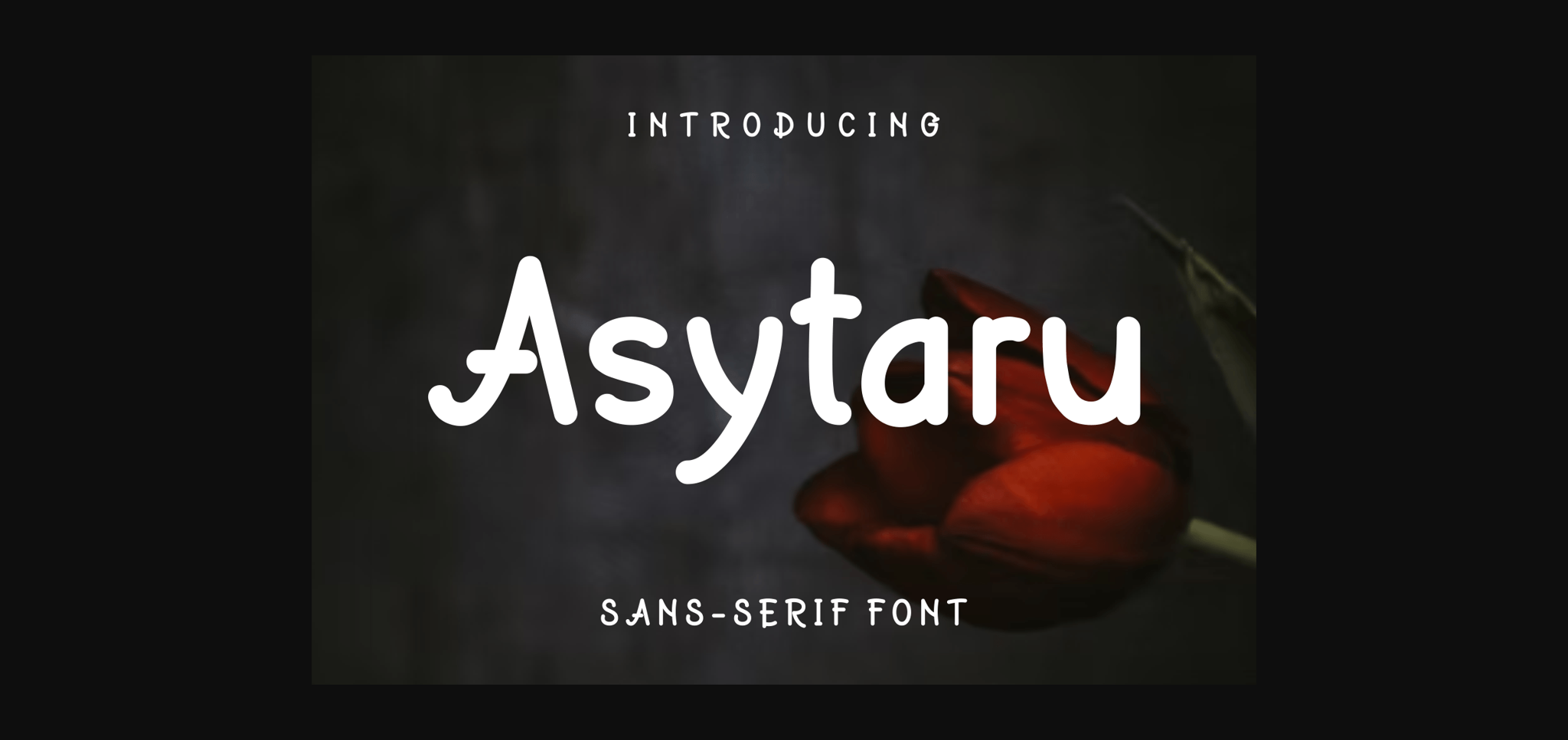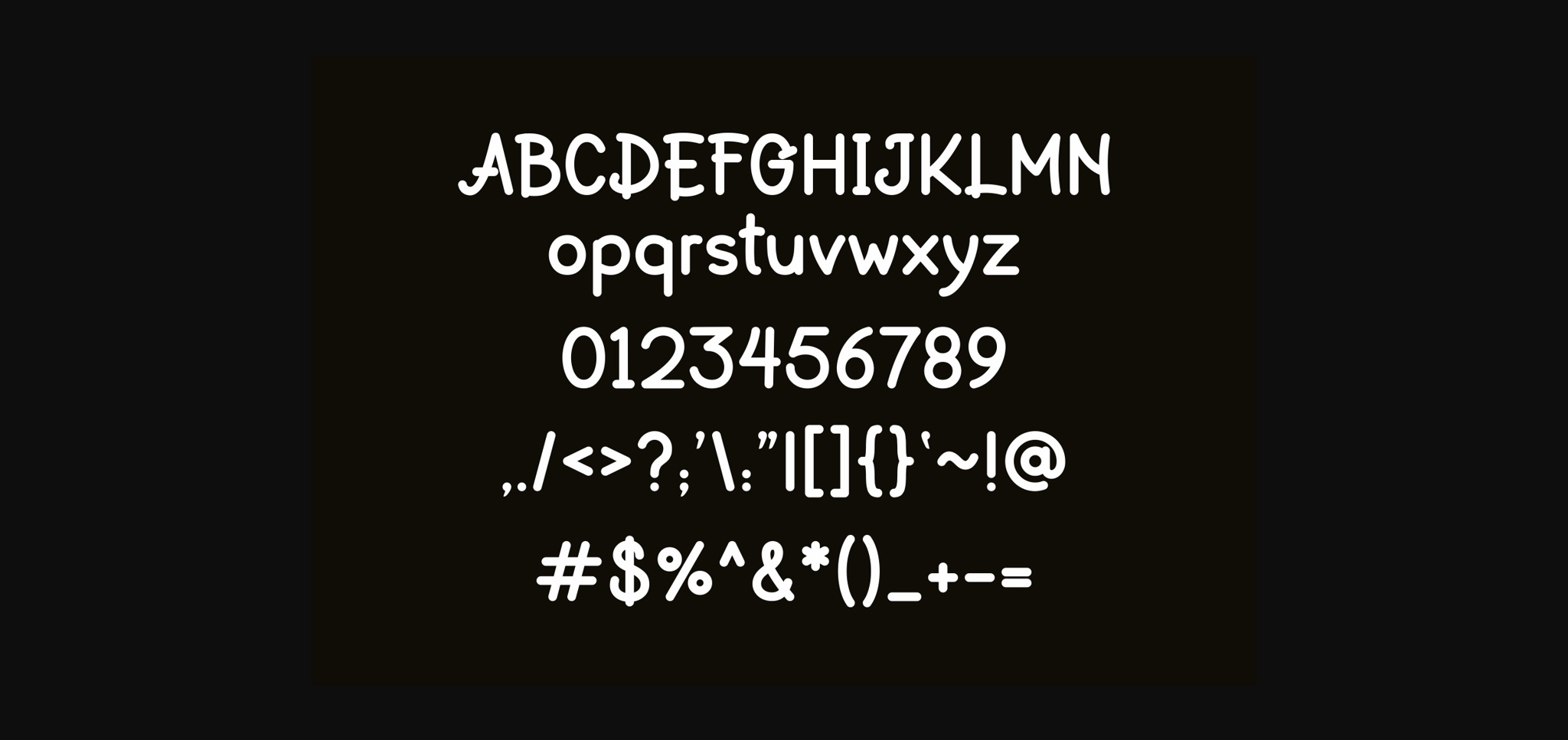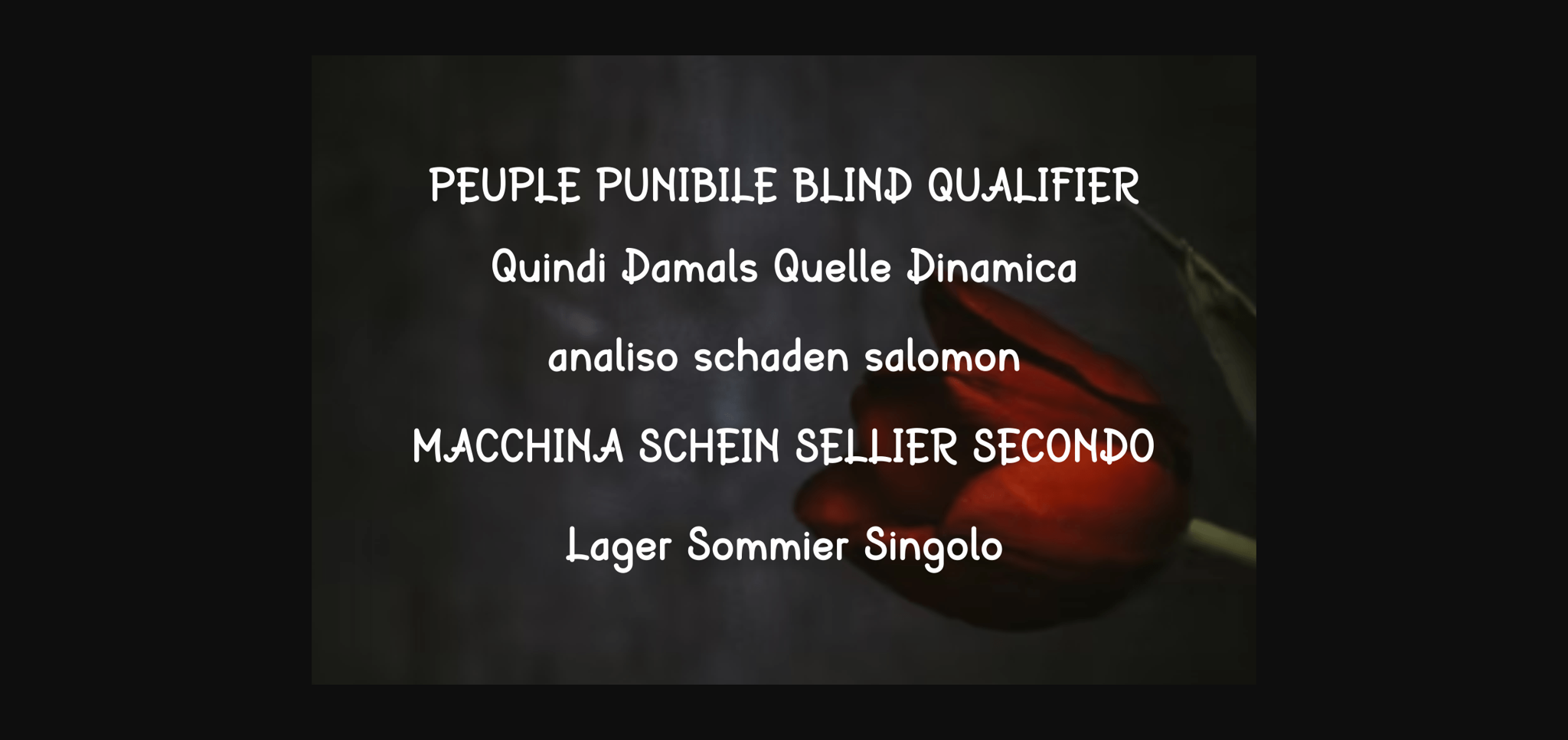
Asytaru Font
About Asytaru Font
Asytaru is a fun and quirky sans serif font. This gentle font will look gorgeous on a variety of design ideas. It will add a joyful touch to each of your projects!